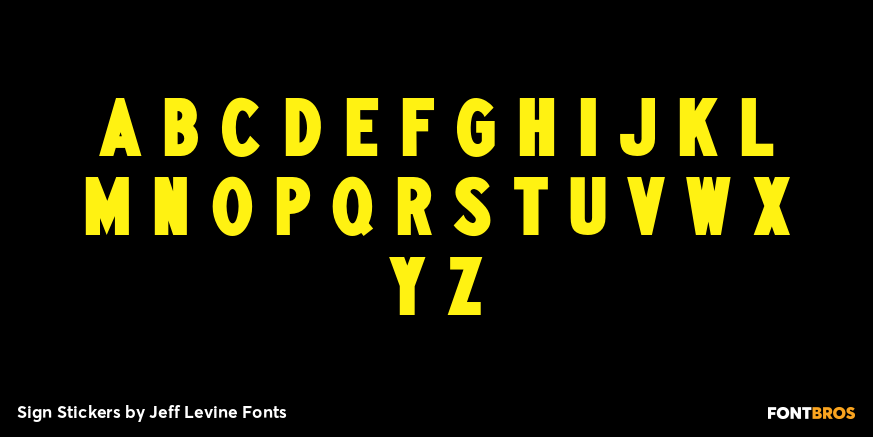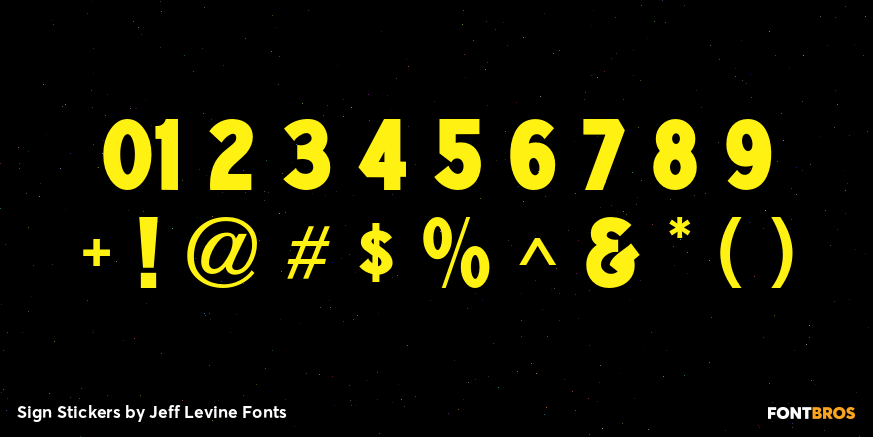
Sign Stickers
In the early 1960s, the Duro Decal Company of Chicago, Illinois added to its line of water-applied decal lettering a retail sign cabinet of die-cut, pressure sensitive vinyl letters and numbers.
Four of the six sizes offered for sale were cut from white plastic with a black outline and a secondary gold inline for a tri-color effect.
Sign Stickers JNL emulates as closely as possible the look of these nostalgic pieces, complete with the slight shifts in line weight due to hand-cut silk screens and the printing process.